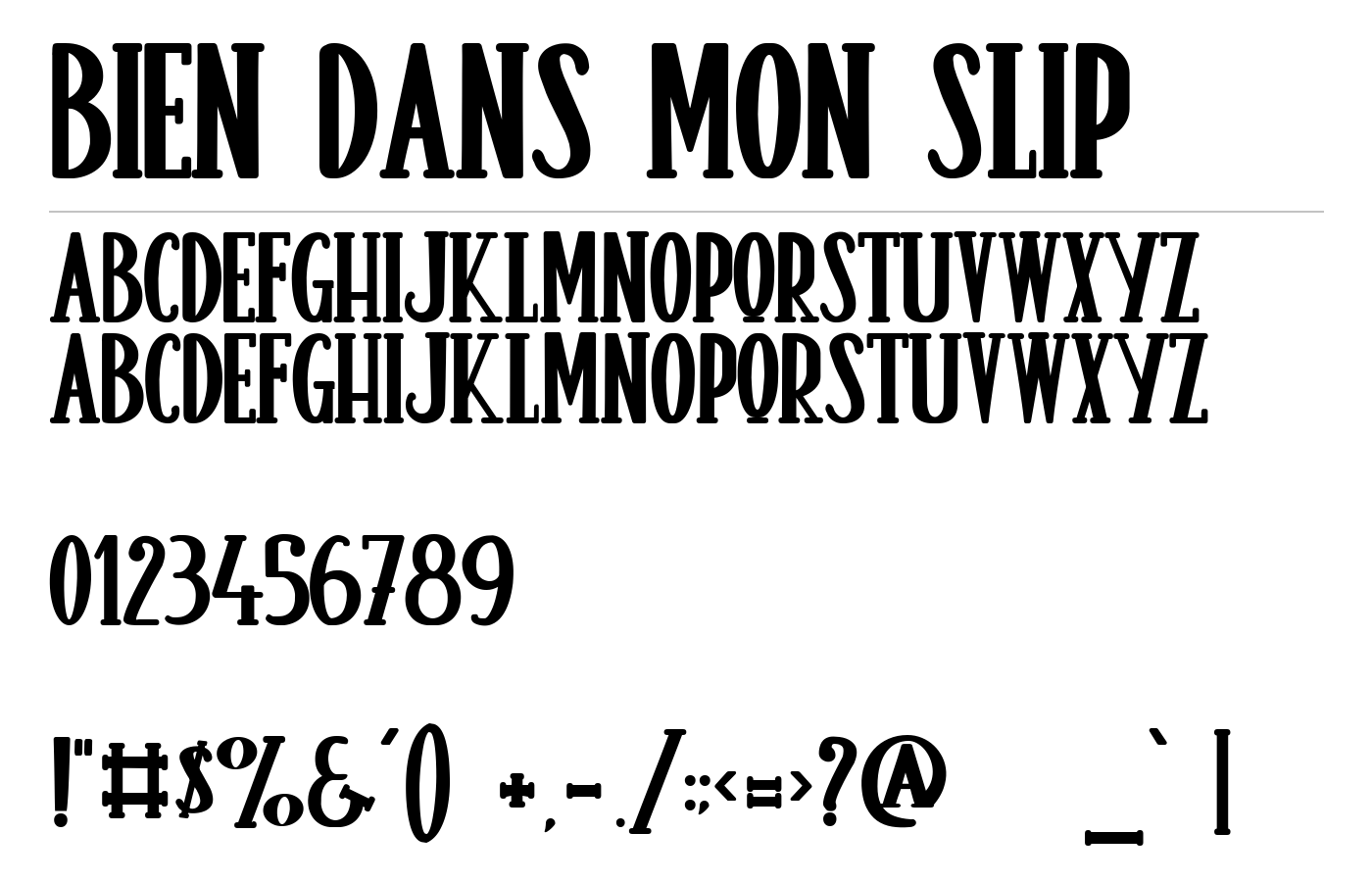
Bien dans mon Slip is a bold, condensed serif font with a quirky, playful character and slightly irregular, hand-crafted shapes. Its tall, narrow letterforms with moderate stroke contrast and distinctive quirky details give it a vintage yet fun and approachable vibe, making it ideal for eye-catching headlines, posters, and branding that seeks personality and charm. This font works well where a unique and expressive style is needed to stand out with a blend of classic serif elegance and a touch of whimsy.
Bien dans mon Slip Font
About Bien dans mon Slip Font